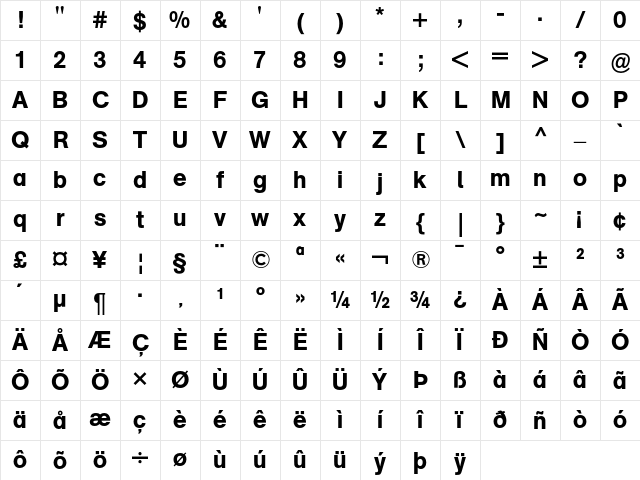
AG Schoolbook Medium A
Style: Medium A
Complete AG Schoolbook Medium A glyph index. Displaying only characters natively supported by AG Schoolbook Medium A font.
Design Context for AG Schoolbook
AG Schoolbook is a composed and adaptable typeface that performs quietly and consistently across a wide range of design contexts.